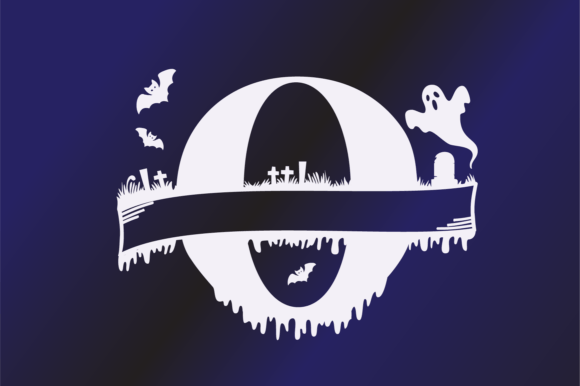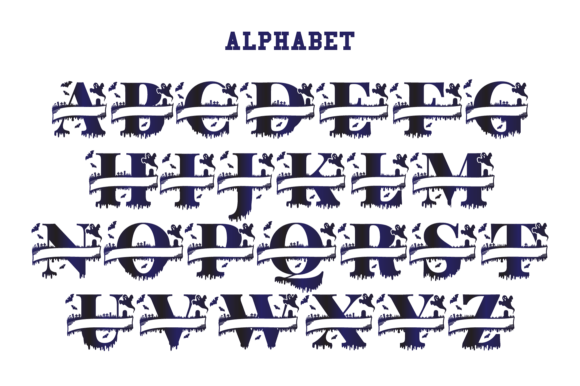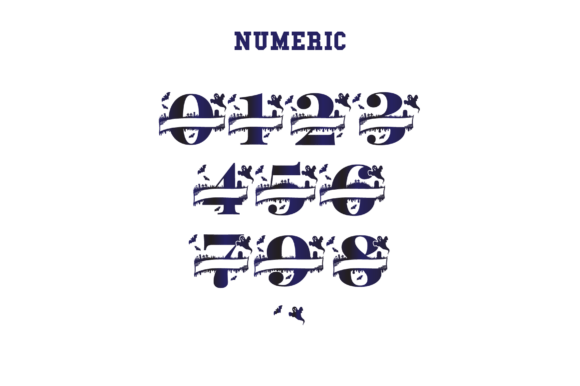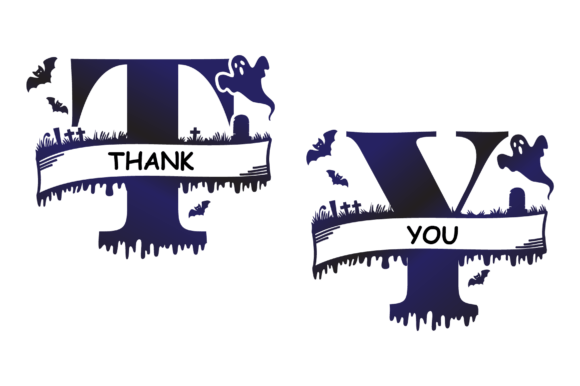
Introduction to Monogram Helloween Font
Monogram Halloween is a fun and decorative font designed for cute and spooky projects.
With its playful ghostly details and charming style, this font is perfect for Halloween-themed designs that lean toward a lighthearted and whimsical feel Ideal for crafting cheerful invitations, party decorations, stickers, t-shirts, and more, this font will add a sweet touch to all your festive creations.
Key Features of Monogram Helloween Font
Why Choose Monogram Helloween Font?